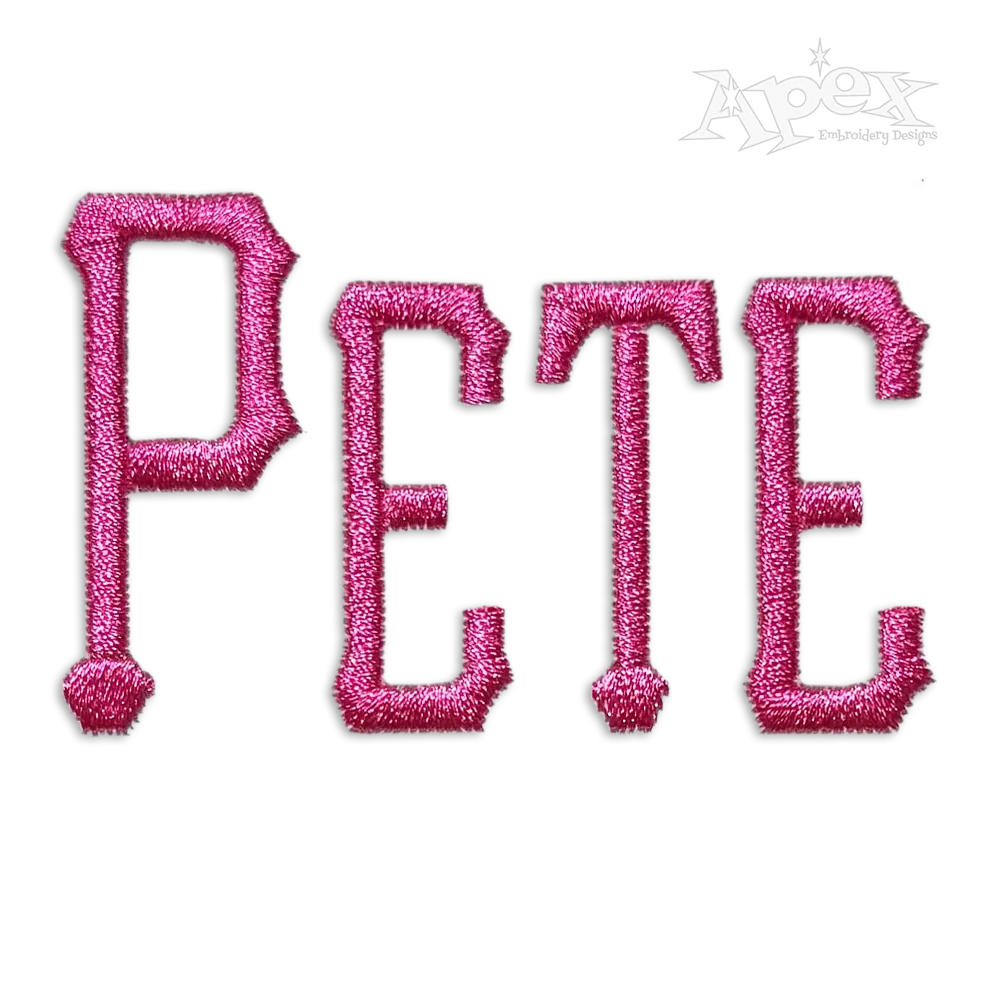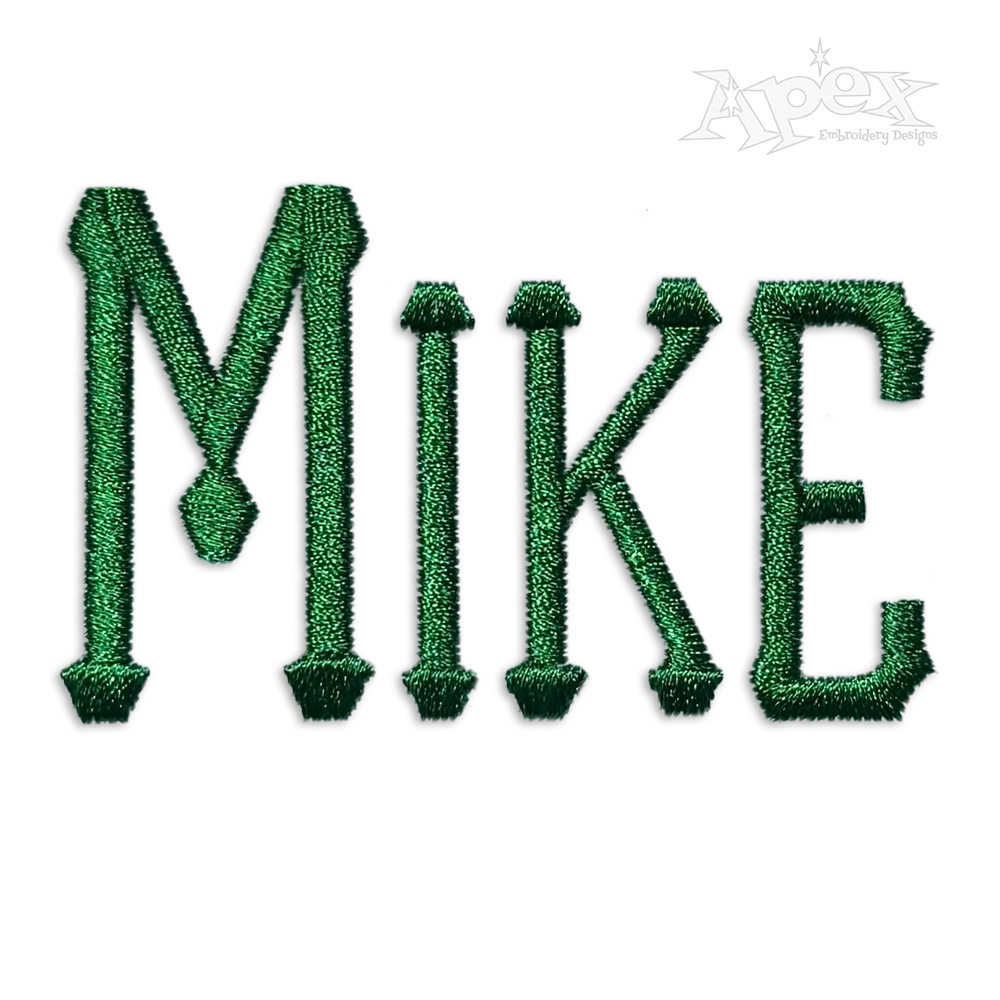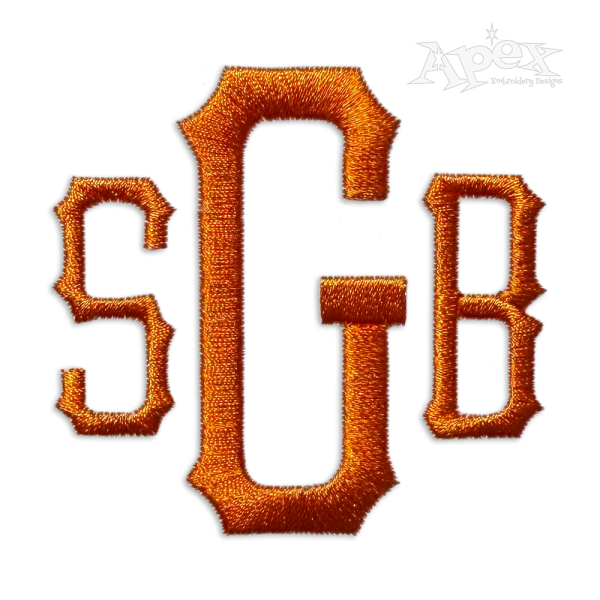
Pittsburgh Pirates Embroidery Fonts
Sunlight strikes riverfront iron and vintage ballpark turf. Pure athletic nostalgia sparked this digitizing journey. We carved bold diamond spurs, narrow silhouettes, and razor-sharp terminals straight into digitized thread paths. Crisp satin columns rise high with unyielding posture, catching light across dense stitch layers. Finished embroidery carries unmistakable dugout swagger, turning personalized fan gear into modern heirloom embroidery.
Complete satin stitch alphabet set includes four versatile heights, fully digitized in rich satin stitch columns for standalone initials or stacked three-letter monograms:
Project Ideas for Pittsburgh Pirates Embroidery Fonts
Tall athletic letterforms adapt effortlessly beyond game-day apparel, lending bold contrast to refined textiles:
- Canvas Totes & Stadium Duffles: Stitch oversized player monograms on heavy cotton duck for durable, standout travel gear.
- Bespoke Resort Wear & Warmups: Personalize fleece bomber jackets, track pullovers, or sideline warmups for distinctive athletic luxury.
- Linen Cocktail Napkins & Luxury Table Linens: Add unexpected vintage sporting charm to game-day watch parties or clubhouse dining tables with single-letter monograms.
- Bridal Robes & Wedding Party Gear: Create memorable team-themed bridal party gifts for sports-loving couples on wedding mornings.
- Heirloom Bedding & Pennant Pillows: Accent custom nursery quilts, dorm linens, or decorative throw pillows with classic collegiate flair.
- Luxury Gifting: Personalize heirloom blankets, wool caps, or leather-trimmed bags for discerning fans and team captains.
- Center Chest: Place 2.5-inch letters prominently across jersey fronts, hoodies, or crewnecks for authentic athletic impact.
- Corner Diagonal: Angle 1-inch or 1.5-inch initials across corners of linen napkins, sideline towels, or pocket squares.
- Cuff & Sleeve: Run 1-inch initials along jacket cuffs or sleeve hems for subtle custom monogramming.
- Border & Pocket: Center 1.5-inch or 2-inch monograms above bag pockets or within framed jacket panels.
Pittsburgh Pirates Embroidery Fonts Craft & Letterform Details
Historic steel town baseball lettering demands fierce precision. Traditional block letters often feel rigid; these letterforms breathe through exaggerated vertical proportions and distinctive center spurs inspired by baseball diamond geometry. Each satin column features carefully mapped stitch angles. Thread travels smoothly around tight corners without bunching, maintaining clean contours from base to crown. High-density underlay locks fabric tight, preventing puckering while letting top satin sheen shine bright. Result is crisp, sculpted relief built for bold statements.